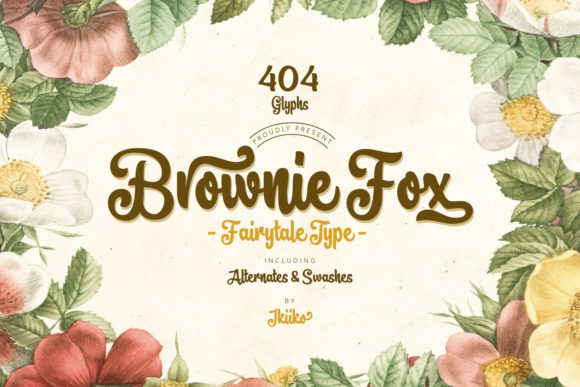
Brownie Fox Font: The Sweetest Addition to Your Typography
Brownie Fox Font is a beautiful, elegant, and dainty handwritten font that has captured the hearts of designers and crafty enthusiasts alike. With its sweet and delicate swashes, this font is perfect for adding a touch of sophistication and whimsy to a wide range of projects. In this article, we’ll dive into the world of Brownie Fox Font, exploring its features, uses, and benefits, as well as provide tips on how to make the most of this stunning font.
What Makes Brownie Fox Font So Special?
Brownie Fox Font is an original and unique handwritten font that boasts a range of features that set it apart from other fonts. Some of its key features include:
- Elegant and dainty design: Brownie Fox Font has a delicate and refined aesthetic that makes it perfect for projects that require a touch of sophistication.
- Sweet and delicate swashes: The font features beautiful swashes that add a touch of whimsy and playfulness to any project.
- Handwritten feel: Brownie Fox Font has a warm and personal feel, making it perfect for projects that require a human touch.
- Versatile: This font can be used for a wide range of projects, from letterheads and titles to stationery and more.
How to Use Brownie Fox Font
Brownie Fox Font is a versatile font that can be used for a wide range of projects. Here are some ideas to get you started:
- Letterheads and titles: Add a touch of elegance and sophistication to your letterheads and titles with Brownie Fox Font.
- Stationery: Create beautiful and unique stationery with Brownie Fox Font, perfect for personal or business use.
- Branding and packaging: Use Brownie Fox Font to add a touch of whimsy and playfulness to your branding and packaging.
- Wedding and event planning: This font is perfect for wedding and event planning, adding a touch of romance and elegance to your designs.
The Benefits of Using Brownie Fox Font
So why choose Brownie Fox Font for your next project? Here are just a few benefits of using this stunning font:
- Unique and original design: Brownie Fox Font is a one-of-a-kind font that will set your project apart from the rest.
- Elegant and sophisticated: This font adds a touch of elegance and sophistication to any project.
- Easy to read: Despite its delicate design, Brownie Fox Font is easy to read and understand.
- Versatile: This font can be used for a wide range of projects, making it a great addition to your font library.
Tips and Tricks for Using Brownie Fox Font
Here are a few tips and tricks for getting the most out of Brownie Fox Font:
- Pair with other fonts: Experiment with pairing Brownie Fox Font with other fonts to create a unique and interesting look.
- Use swashes wisely: The swashes in Brownie Fox Font are a beautiful feature, but use them wisely to avoid overwhelming your design.
- Experiment with colors: Try out different colors and textures to add depth and interest to your design.
- Pay attention to spacing: Make sure to pay attention to spacing and kerning to ensure your text is easy to read.
Font Pairing Suggestions
Brownie Fox Font pairs well with a range of other fonts. Here are a few suggestions:
- Open Sans: A clean and modern sans-serif font that pairs well with the elegance of Brownie Fox Font.
- Lato: A beautiful and elegant sans-serif font that complements the delicate design of Brownie Fox Font.
- Merriweather: A classic serif font that pairs well with the whimsy and playfulness of Brownie Fox Font.
Brownie Fox Font is a beautiful and elegant handwritten font that is perfect for adding a touch of sophistication and whimsy to a wide range of projects. With its sweet and delicate swashes, this font is sure to capture the hearts of designers and crafty enthusiasts alike. Whether you’re looking to create a stunning letterhead, a beautiful piece of stationery, or a unique brand identity, Brownie Fox Font is the perfect choice.